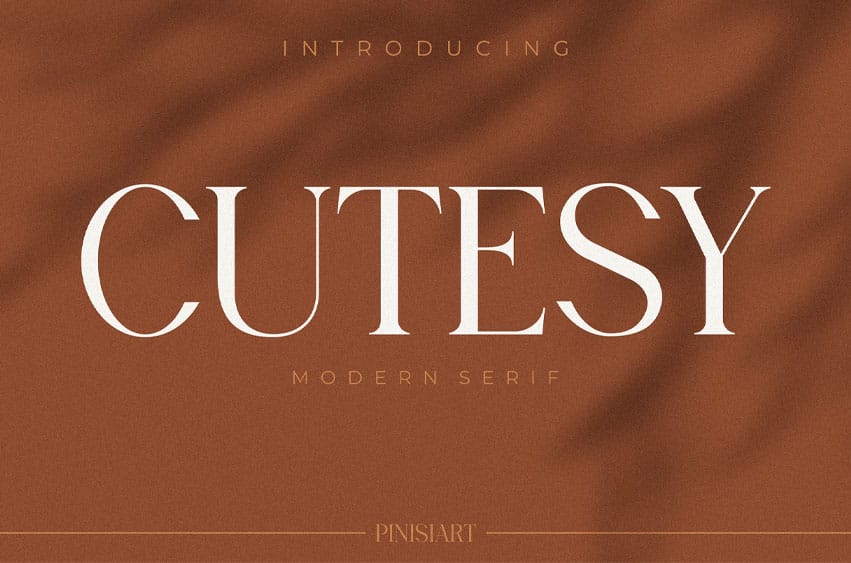
Cutesy Font is a modern, elegant serif that balances delicate curves with structured refinement, perfect for creators seeking a soft yet confident aesthetic. Its moderate contrast, subtle flair, and sculpted terminals give it a timeless beauty that fits right into editorial layouts, fashion packaging, and mindful lifestyle branding. CUTESY evokes calm confidence, making every word feel curated and poised.
Ideal for wellness studios, boutique product labels, branding for spas, beauty influencers, or curated social feeds, CUTESY blends approachability with elegance. Whether it’s for product storytelling, conscious living quotes, or upscale menus, this typeface radiates warmth and design clarity—your perfect companion for branding that feels intentional and elevated.
- Elegant modern serif with soft contrast and feminine flow
- Readable and expressive across print and digital formats
- Ideal for mindful branding, packaging, and fashion-related text
- Balanced style that works for logos, editorials, and social media
- Subtle uniqueness helps it stand out from generic minimalist serifs
CUTESY is best used for boutique product branding, fashion labels, conscious lifestyle blogs, wellness content, spa packaging, and inspirational quote graphics. Its versatility and charm suit both long-form and headline use—perfect for refined, narrative-driven brands.